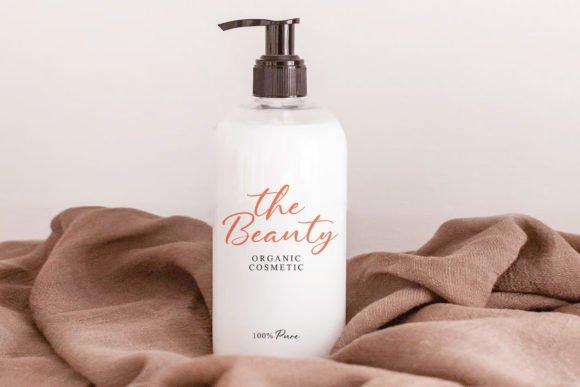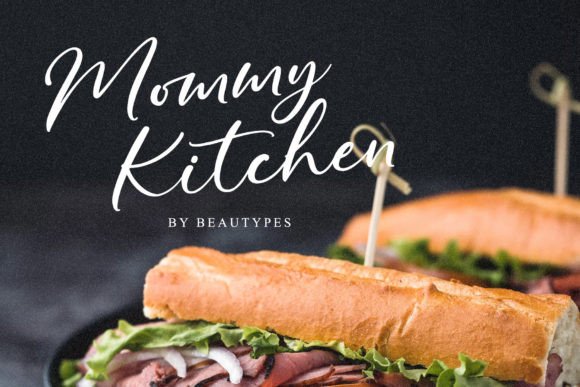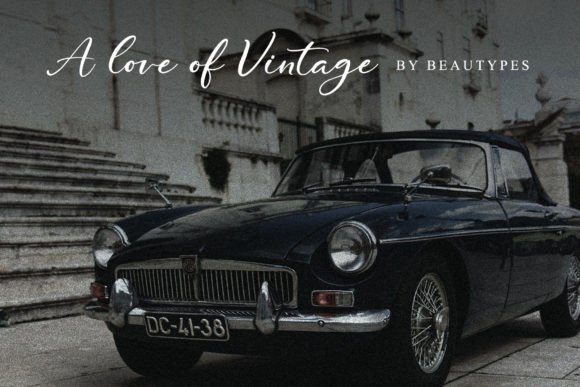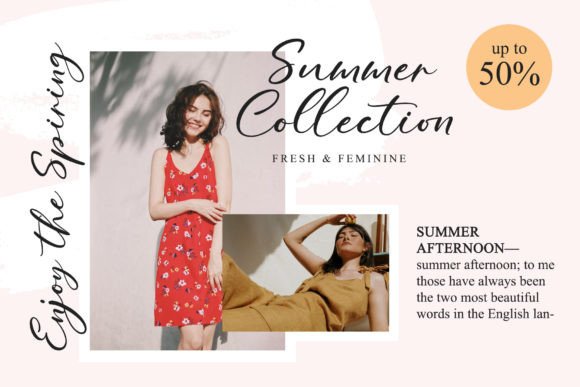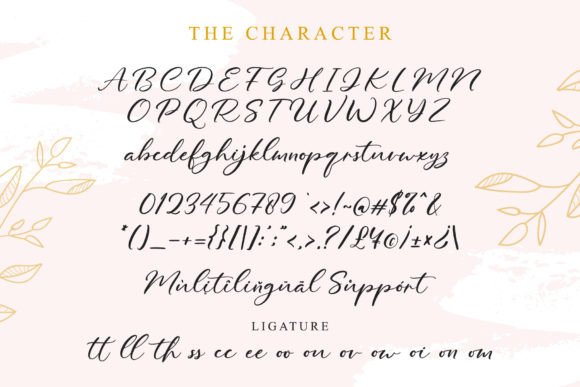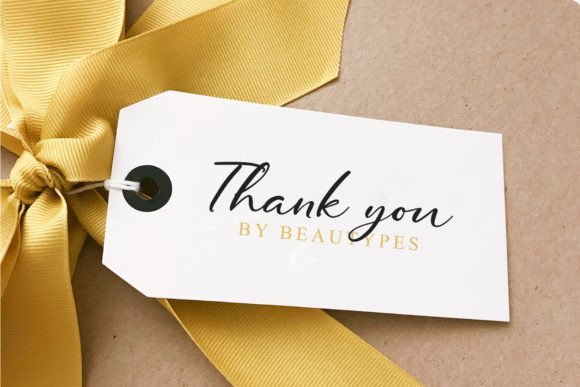
Introduction to Lasthoney Font
Do you remember the thrill of scribbling your first love letter or creating a handmade card for a dear friend? Those moments are etched in our memories, not just because of the emotions they evoke, but also because of the unique, handwritten touch that makes them special. If you’re a designer looking to add a similar touch to your projects, you’re in luck. The Lasthoney Font is here to revolutionize your creative endeavors.
As a high-quality, elegant casual handwritten script font, Lasthoney Font is the perfect design resource for any creative project. Its beautiful, flowing strokes and subtle nuances make it ideal for a wide range of applications, from elegant branding and wedding stationery to romantic book cover designs and classy packaging. And the best part? You can easily customize it to fit your needs, whether you’re working with a transparent background or looking for a unique social media post design.
Key Features of Lasthoney Font
- High-quality design resource ideal for creative projects and professional use.
- Transparent background, allowing for seamless integration with any design.
- Features a unique, modern design with clean lines and elegant typography.
- Perfect for use in logos, branding materials, and other design elements where a distinctive, high-quality font is required.
Honest Review: Lasthoney Font
Here are some of the things that work well with the Lasthoney Font: ✨
- Unique character set with a wide range of glyphs
- Transparent background, making it easy to layer with other design elements
- High-quality vector format, suitable for both print and digital applications
- The font may not be suitable for projects that require a more traditional or formal tone
- The character set may not be as extensive as some other fonts in this category
Overall, I’m impressed with the Lasthoney Font. It’s a great choice for designers who want to add a touch of creativity to their projects without breaking the bank. With its unique character set and high-quality vector format, it’s definitely a design resource worth considering.
Tips for Getting the Most Out of Lasthoney Font
When using Lasthoney Font, be sure to experiment with different font sizes, colors, and styles to get the most out of its unique design. You can also use the font in combination with other design elements, such as images and graphics, to create a cohesive and visually appealing design. Additionally, consider using the font in a creative project, such as a logo or branding material, to really showcase its high quality and design potential.
Common Use Cases for Lasthoney Font
Lasthoney Font is a versatile design resource that can be used in a variety of creative projects, including logos, branding materials, and digital designs. Its high quality and transparent background make it an ideal choice for designers looking for a unique and professional